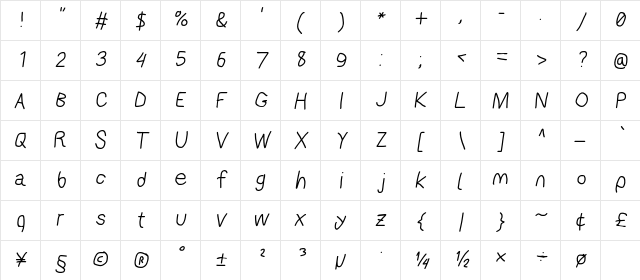
Complete AppleStorm Ita glyph index. Displaying only characters natively supported by AppleStorm Ita font.
AppleStorm is a composed and adaptable typeface that performs quietly and consistently across a wide range of design contexts. The slanted form adds forward momentum and visual energy.
Pro Tip: Use AppleStorm for emphasis, pull quotes, and subheadings where its slanted energy can add rhythm to the layout.